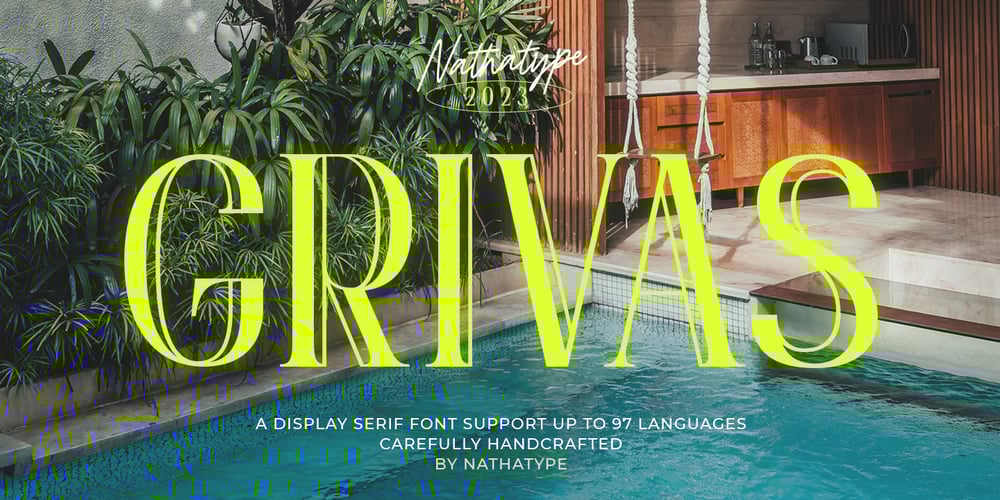
Grivas Font Family was designed by Donis Miftahudin and published by Nathatype. Grivas contains 1 styles and family package options. Prepare to be entranced by the unparalleled allure of Grivas, a serif display font that redefines typographic elegance. Each letter of Grivas is a work of art, meticulously crafted with two distinct outlines that harmoniously coexist. One outline boasts a refined delicacy, evoking a sense of timeless sophistication, while the other exhibits bold strokes that command attention and add a modern twist. For the best legibility use this font in the bigger text sizes.